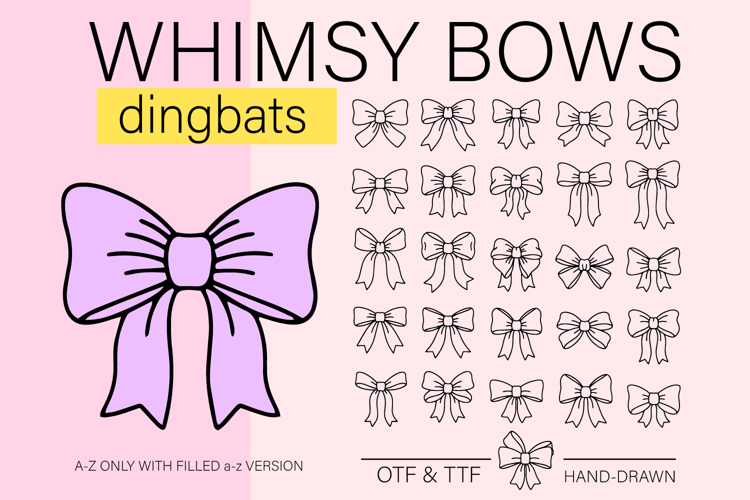
A cute Whimsy Bows - A Cute Bow Outline Font You can create lots of things using this font including logos, use in Cricut machines etc for your parties like birthdays, fun projects, and making monograms. This font is ready to help you in every situation.
This Font has Letters A-Z
a-z In Filled Shape
Whimsy Bows